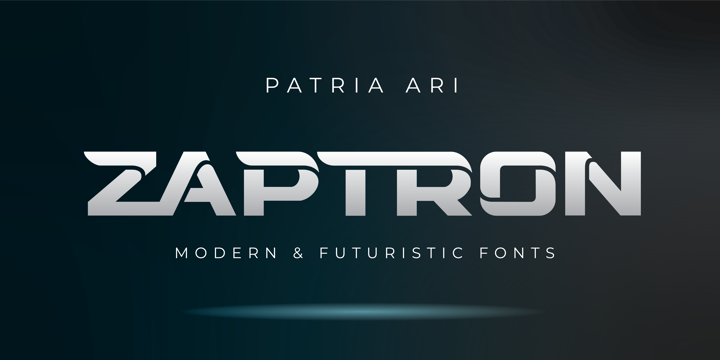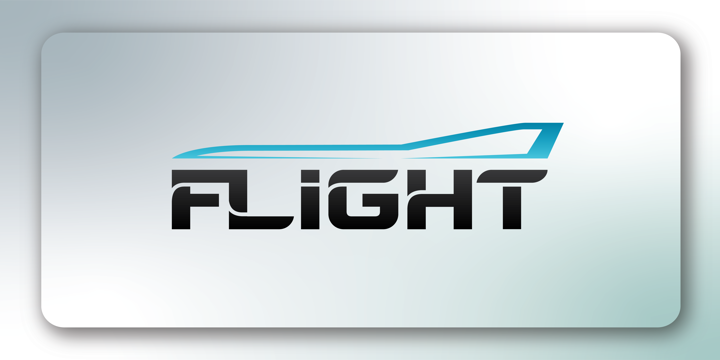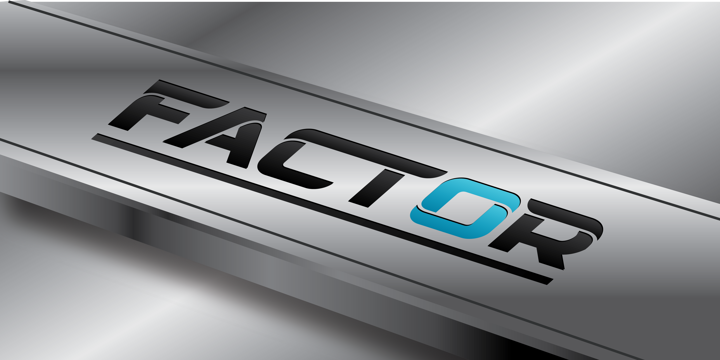
Zaptron Font
Zaptron FontZaptron is a modern sci-fi fonts with different shapes on uppercase and lowercase. With this difference, you can explore different combinations, also with more than 100 discretionary ligatures you can access by hit capslock/uppercase.
This logo perfect for logotype especially on technology, construction, automotive, and more.